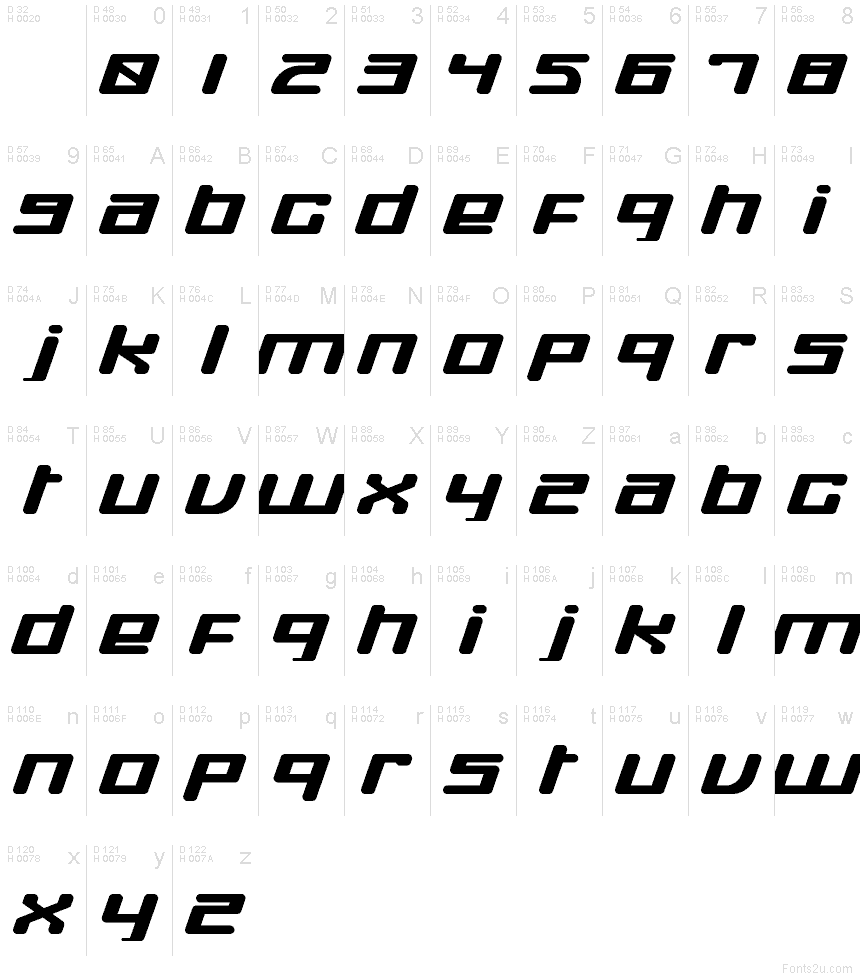
ASVHEN Italic
Asvhen Italic font by Uncarving Nation is a modern display font with flat, incompletely-closed shapes. The expanded techno geometric design gives its characters a distinctive futuristic appearance. Clean lines with consistent thickness are found throughout this structured set.